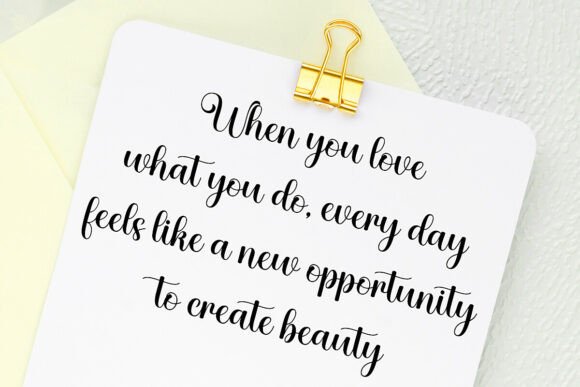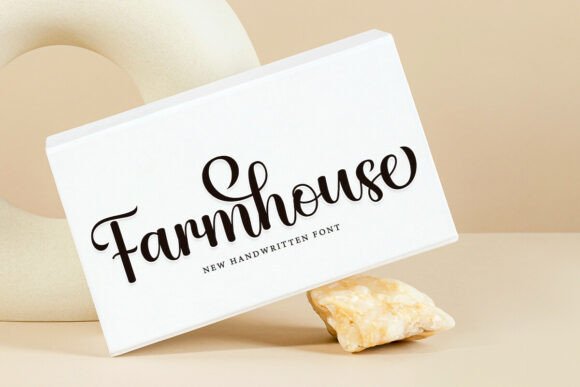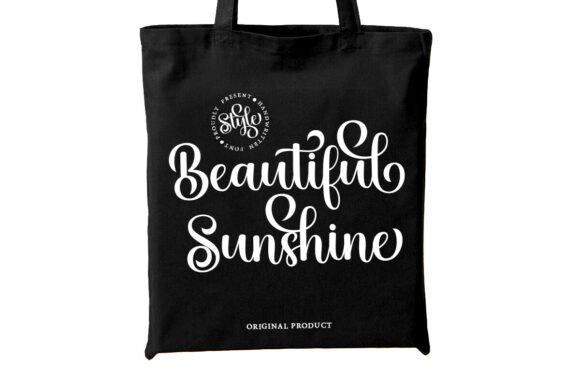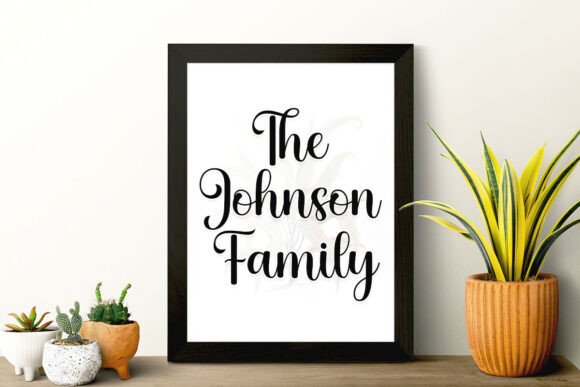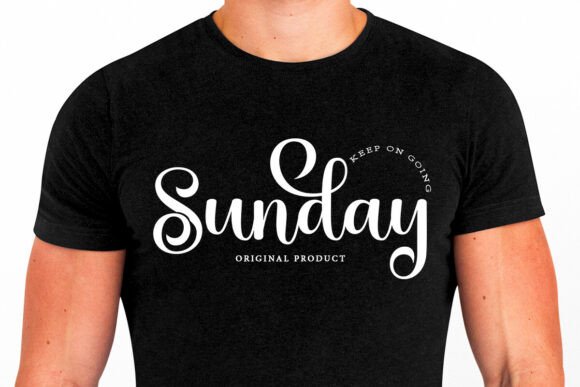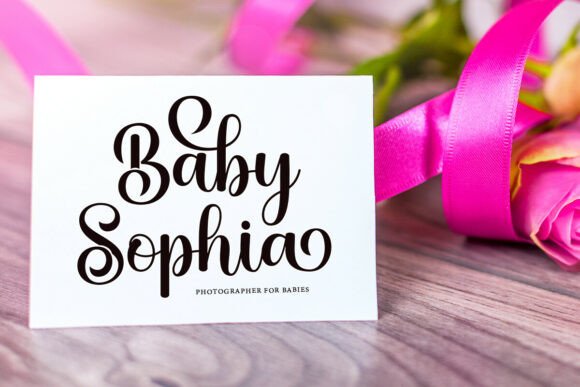
Introduction to Disney Simple Font
Disney Simple feels equally charming and elegant.
This stunning script font is a stylish homage to classic calligraphy It will elevate any design project to the highest level, be it branding, titles, wedding designs, invitations, signs, logos, labels and more.
Key Features of Disney Simple Font
Why Choose Disney Simple Font?
Disney Simple Font offers exceptional quality and versatility, making it a valuable addition to your design toolkit. Whether you’re creating for personal projects or commercial use, Disney Simple Font delivers professional results.